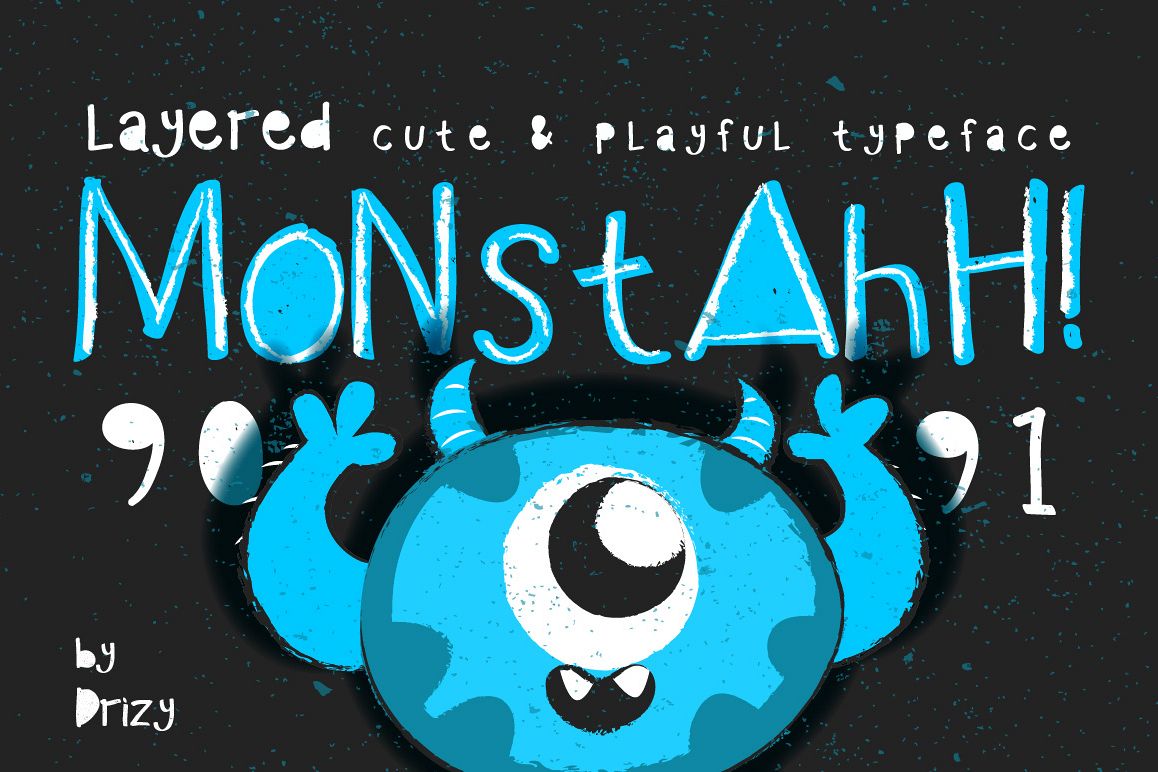
Monstahh Layered Typeface
Monstahh typeface inspired by cute monster from sesame street. Always fit for your poster quote things, branding, logo, magazine headlines, etc. Monstahh typeface also come included with multilingual support for the following languages: